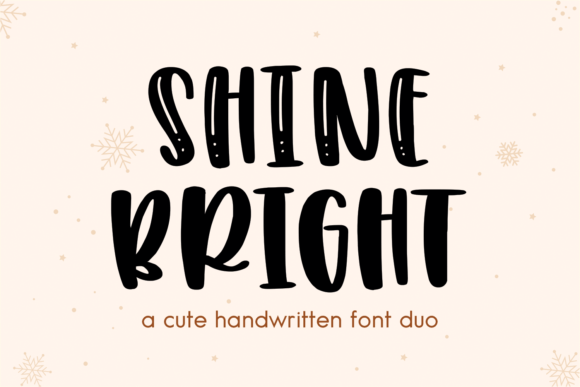
Introducing Shine Bright Font - A Handcrafted Script Font Family Designed to Make Your Designs Sparkle!
Journey into a world of captivating typography with Shine Bright, a radiant script font family that embodies the essence of joy and celebration. Created by the talented team at Mozatype, this font is a visual masterpiece that will add an enchanting touch to your creative projects. Whether you're designing birthday invitations, crafting heartwarming greeting cards, or creating eye-catching social media graphics, Shine Bright will illuminate your designs with its playful charm.
As a handwritten display font, Shine Bright exudes a genuine and personal touch that connects with your audience on a deeper level. Its meticulously crafted characters dance across the page with an effortless flow, capturing the essence of handwritten notes and heartfelt messages. Each letter is lovingly crafted with delicate curves and playful flourishes, creating a symphony of visual delight that draws the eye and captivates the imagination.
Dive into a World of Creative Possibilities with Shine Bright:
- Birthday Celebrations: Let the glow of this font illuminate your birthday designs. Create personalized invitations, banners, and greeting cards that radiate joy and happiness.
- Social Media Magic: Make your social media posts sparkle with Shine Bright's radiant charm. Design eye-catching graphics, quotes, and announcements that will captivate your audience and leave a lasting impression.
- Branding with Personality: Infuse your brand with a touch of whimsy and warmth by incorporating Shine Bright into your logo, website, and marketing materials. Its playful nature will create a memorable and engaging brand identity that resonates with your customers.
- Craft Products: Unleash your creativity and create unique craft products that exude charm and personality. Design custom t-shirts, mugs, tote bags, and other merchandise featuring Shine Bright's cheerful characters.
- Digital Art and Lettering: Let Shine Bright's enchanting aura inspire your digital art and lettering projects. Experiment with different colors, backgrounds, and textures to create captivating compositions that showcase the font's versatility and beauty.
Embark on a Creative Adventure with Shine Bright:
Shine Bright isn't just a font; it's a gateway to a world of creative possibilities. With its remarkable adaptability, this font adapts seamlessly to a wide range of design styles and projects. Whether you're a seasoned designer or just starting your creative journey, Shine Bright will effortlessly elevate your creations and transform them into works of art.
Its versatility knows no bounds, making it the perfect companion for a variety of projects, including:
- Website headers that leave a lasting impression
- Logos that radiate warmth and personality
- Greeting cards that convey heartfelt messages
- Invitations that set the tone for unforgettable celebrations
- Social media graphics that spark conversations
- Marketing materials that leave a lasting impact
Welcome to the world of Shine Bright, where creativity shines brighter than a thousand stars.